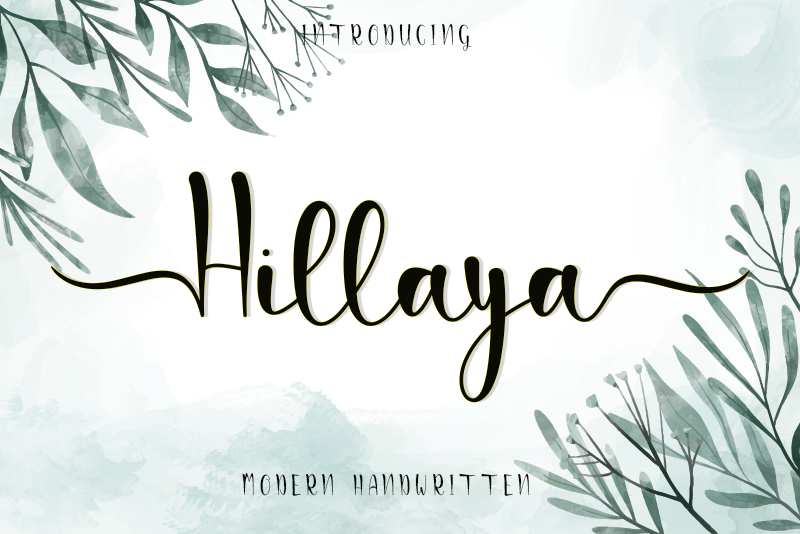
Hillaya is a very casual modern handwritten font. very elegant writing and looks very beautiful, suitable for wedding invitations, greeting cards, logo designs, t-shirt designs, etc. Personal Use Only. For Commercial licenses and complete set available at: https://www.creativefabrica.com/designer/arkrist-letter-studio Thanks for checking out my store, and feel free to get in touch if you have any questions! harjunokristanto@gmail.com |